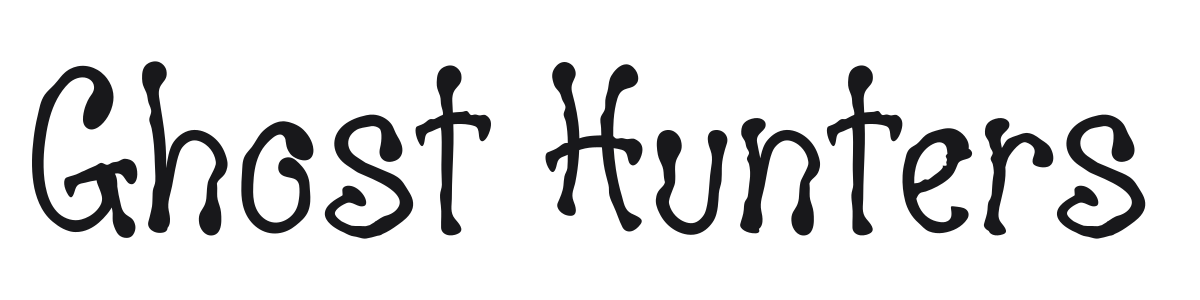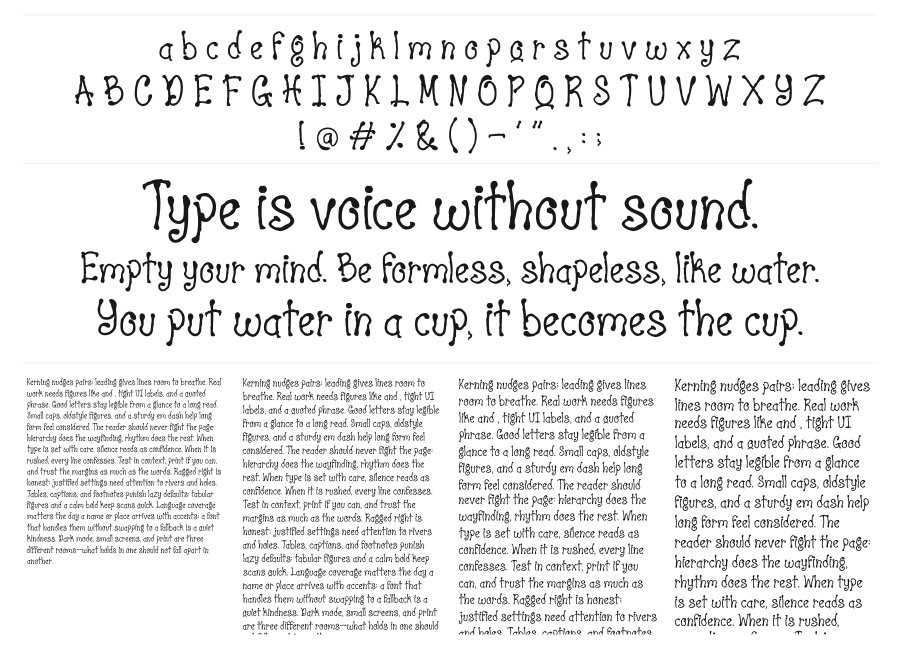
Ghost Hunters
Ghost Hunters is a novelty display font with thick, irregular strokes and distinctive blob-like droplet terminals that suggest something dripping or spectral. The slightly off-kilter angles and wobbly rhythm give it a handmade, storybook quality that leans into spooky territory without becoming grim. Strong for Halloween branding, horror-themed editorial work, and anything that needs a playful edge of the uncanny.